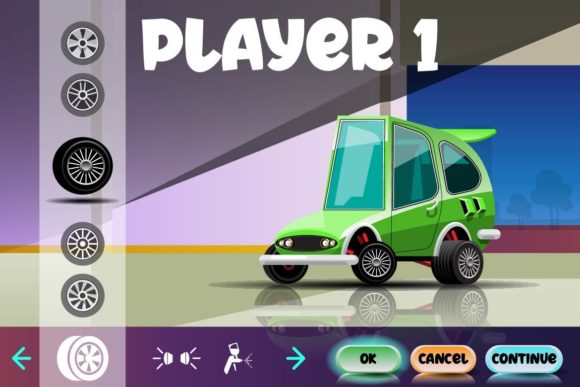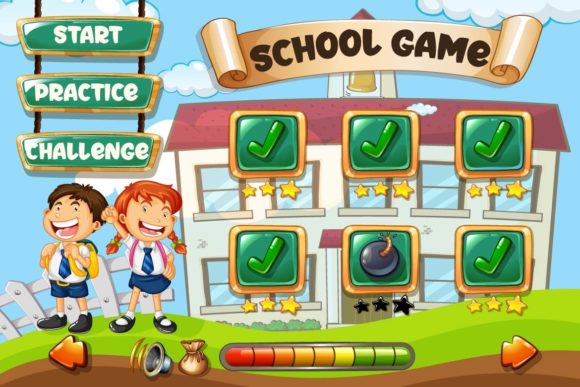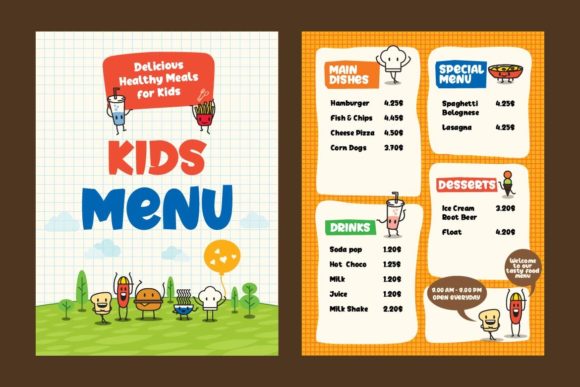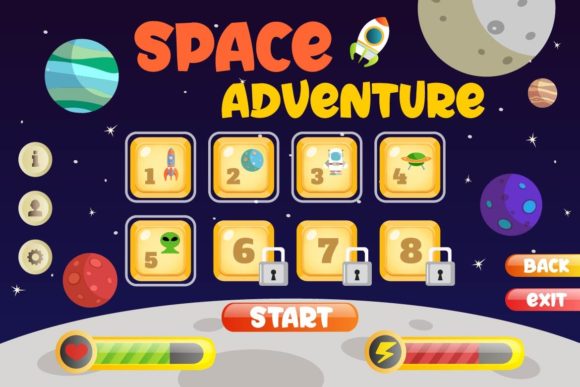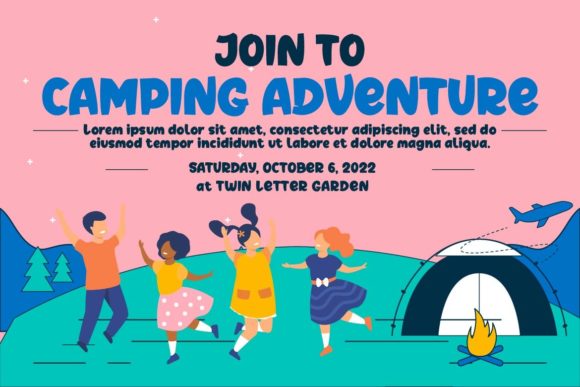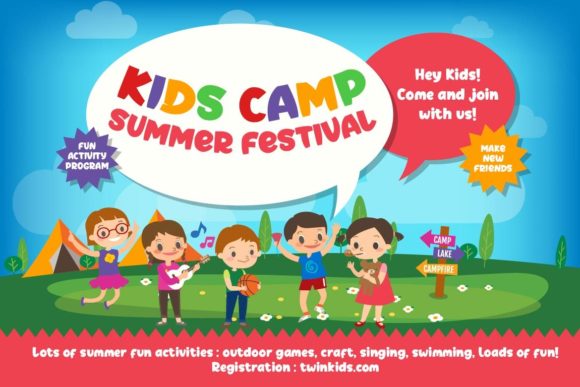
Introduction to Nort Right Font Font
Fonts play a crucial role in design, and the Nort Right Font font is a typeface that brings both character and versatility to any project. Whether you’re working on a branding project, a website, or a print design, the Nort Right Font font offers a unique style that can elevate your work.
Nort Right is a cartoon-like and colorful display font.
It embodies playfulness and authenticity and is the perfect choice for any children activity or school project Add this chunky lettered font to your designs and notice how it makes them come alive.
The Nort Right Font font is more than just a typeface – it’s a design tool that helps you communicate your message with style and clarity. Its unique character set and versatile design make it suitable for a wide range of applications, from elegant invitations to bold headlines.
With its carefully crafted letterforms and balanced proportions, the Nort Right Font font ensures readability and visual appeal across all mediums.
The Nort Right Font font stands out with its unique design, exceptional readability, and versatility across various design applications.